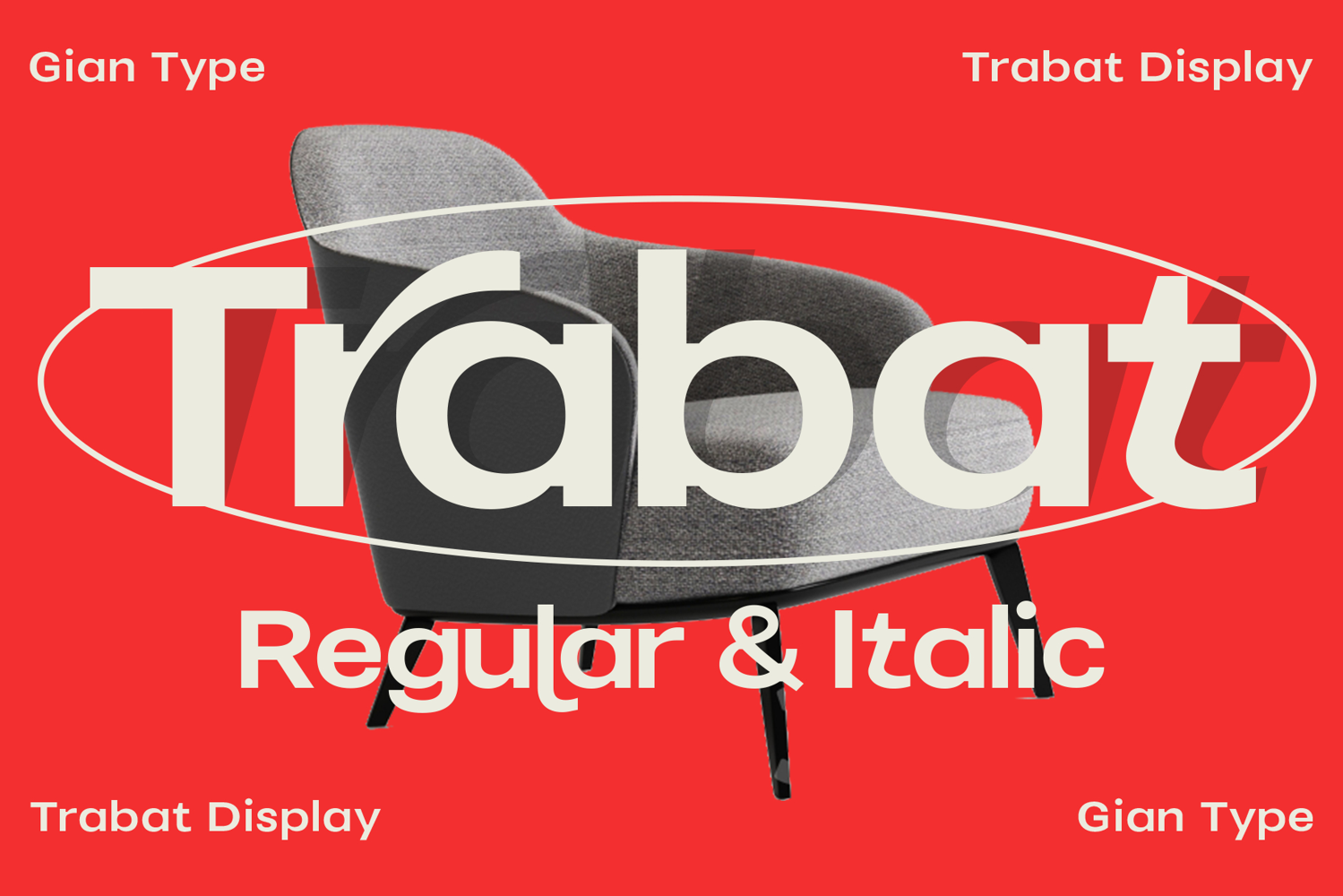
Trabat Display
Meet Trabat Display – a bold and graceful serif typeface designed with expressive curves, soft edges, and beautifully sculpted serifs. Crafted for designers who want to create refined, editorial-driven work, Trabat Display blends classical inspiration with modern flair.
This font is perfect for magazine layouts, branding, book covers, packaging, and high-end social media graphics. Its elegant contrast and subtle flair give your text a voice that feels confident, timeless, and stylish.
Trabat Display comes in two variants – Regular and Italic – both rich in personality and designed to bring charm and sophistication to your typography.
Key Features:
Two styles included – Regular and Italic
High contrast serif with soft curves and rounded details
Perfect for editorial, fashion, packaging, and branding
Designed with elegance and usability in mind